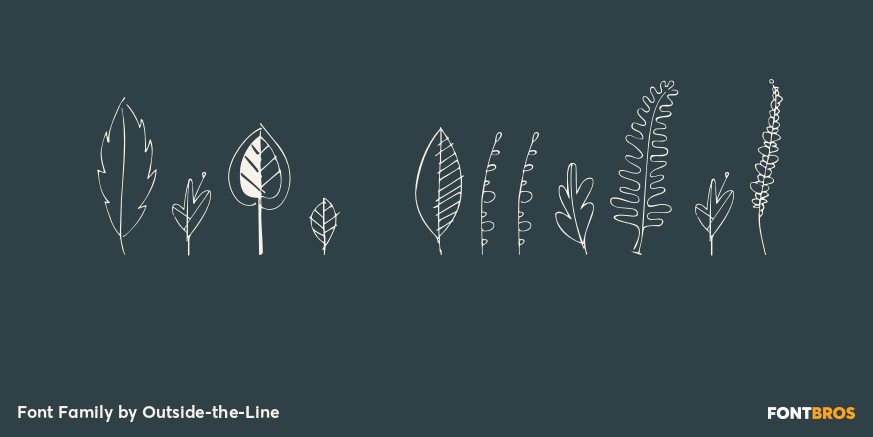
Leaves… lots of leaves… all hand drawn… 62 of them in fact. Big ones, small ones, line ones, reverse ones to use alone or together in groupings. A very versatile font.